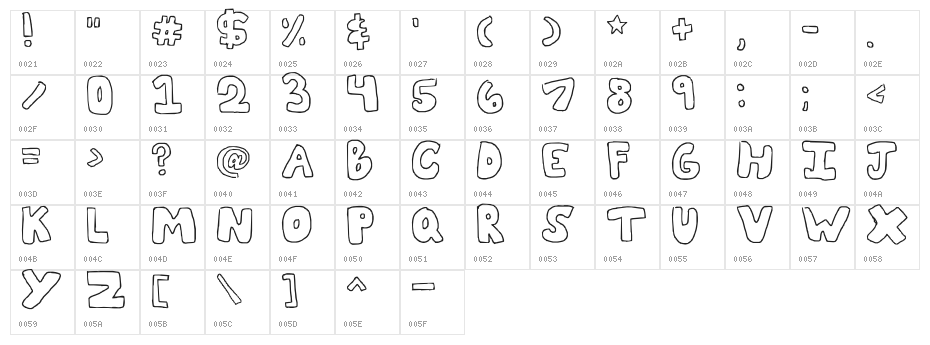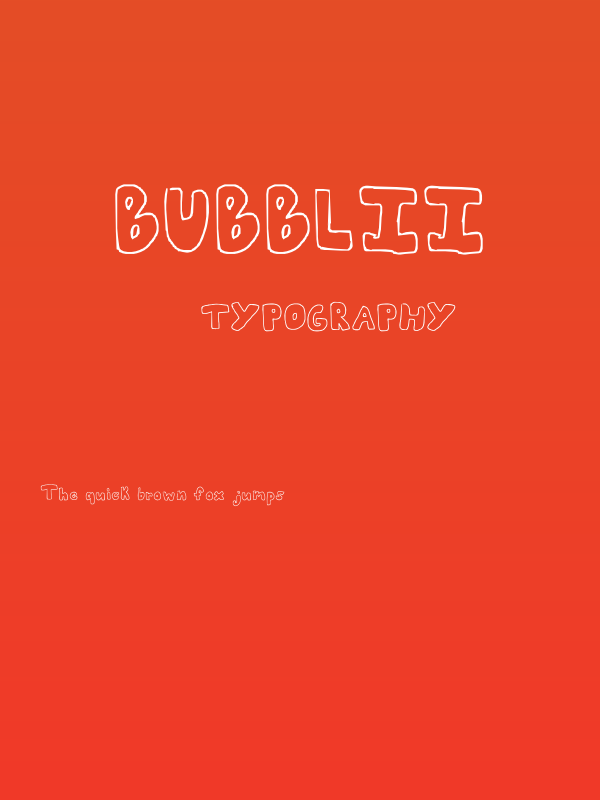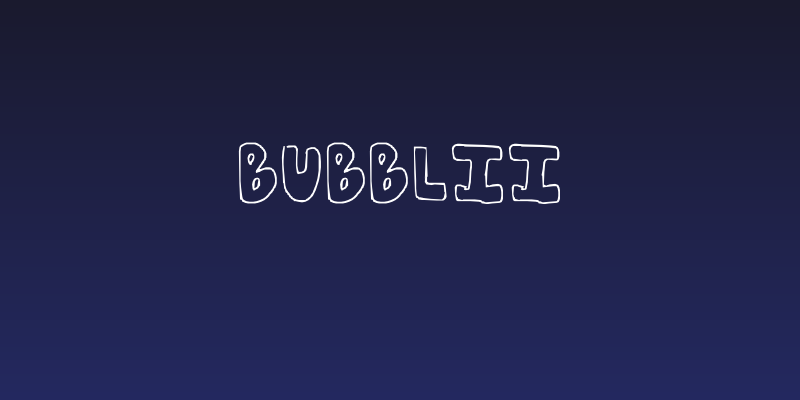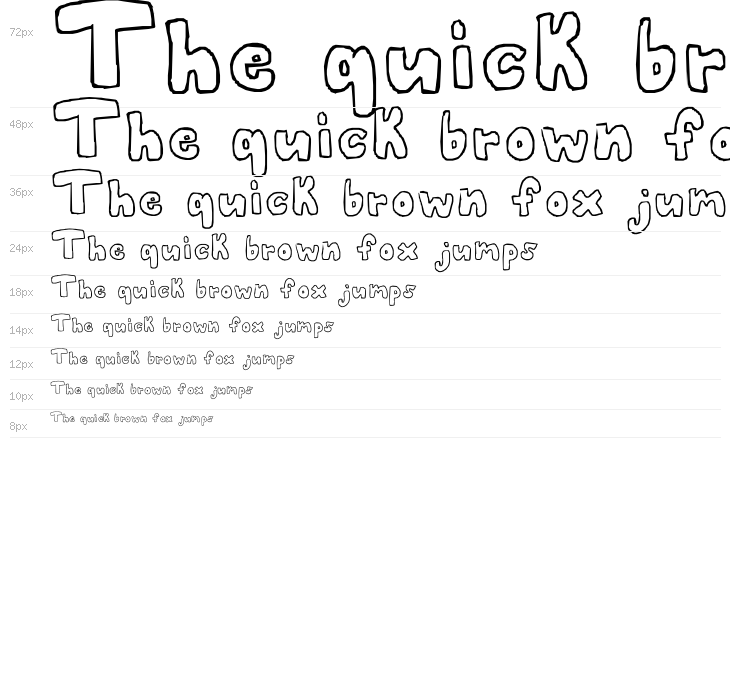
bubblii Font
bubblii Description
This playful and whimsical font features a bubbly, hand-drawn style that exudes a sense of fun and creativity. The letters are rounded and irregular, giving them a casual and approachable appearance. The strokes are consistent in thickness, contributing to a cohesive look across all characters. The font includes both uppercase and lowercase letters, as well as numbers and a variety of special characters. Its unique style makes it ideal for projects that aim to convey a lighthearted and informal tone.
| Overall Style | Playful, Whimsical |
| Proposed Projects | Ideal for children's books, playful branding, party invitations, and creative posters. |